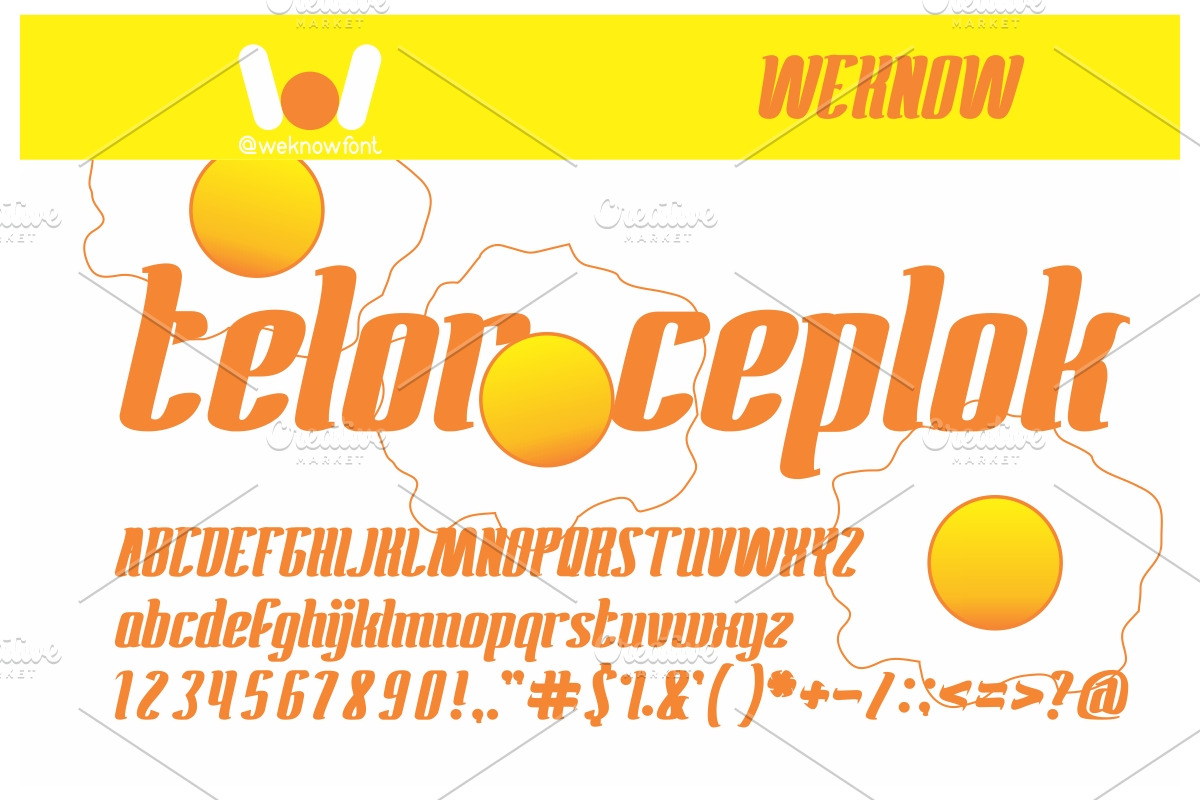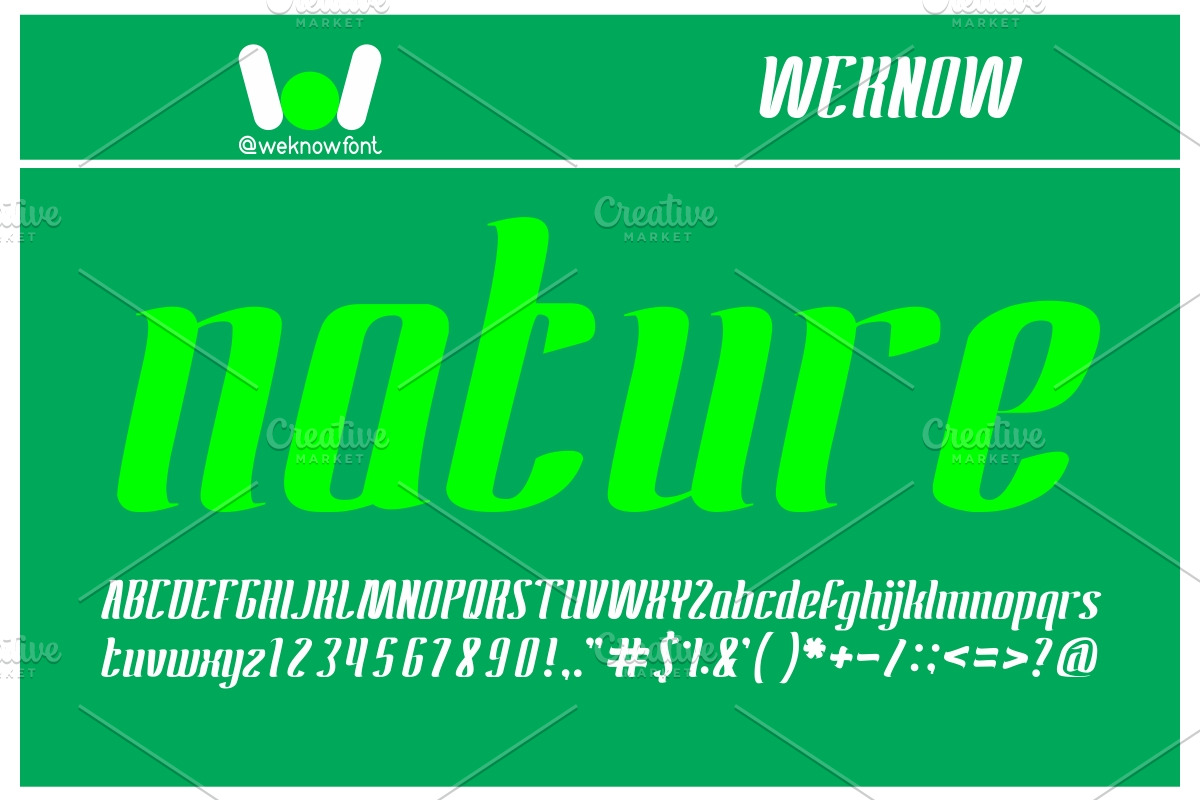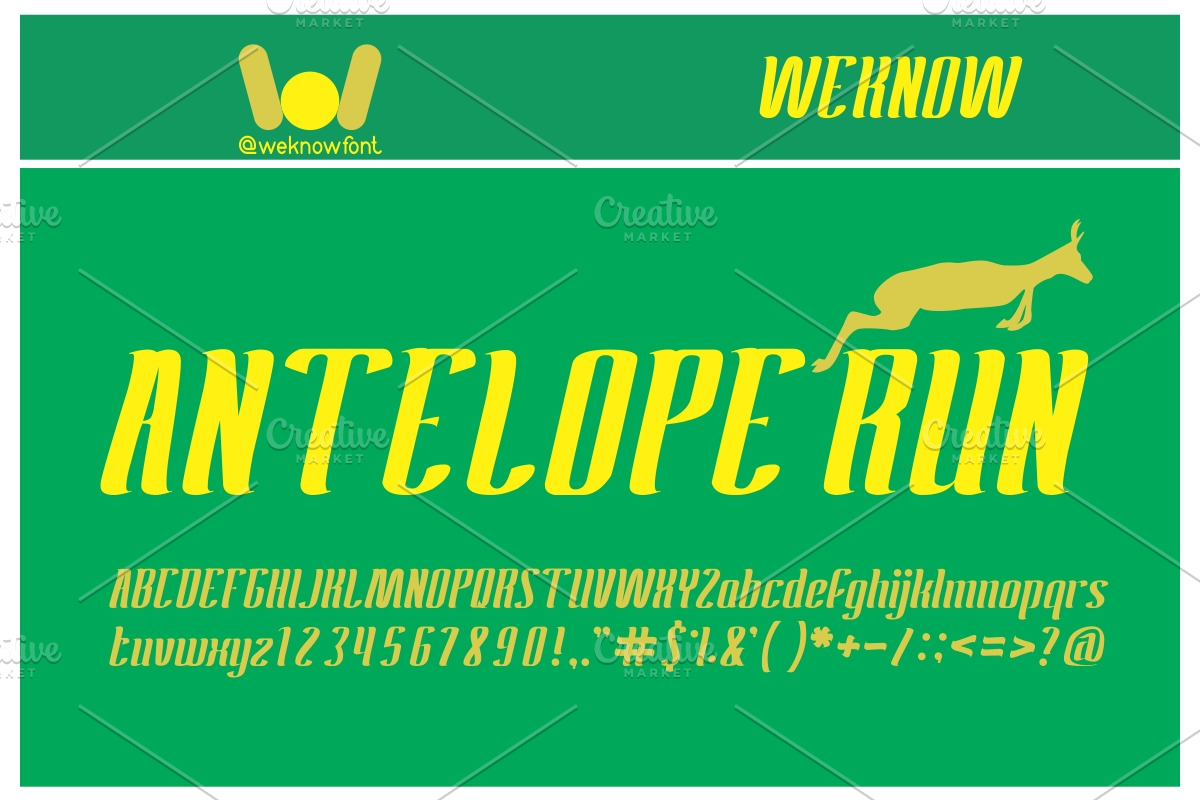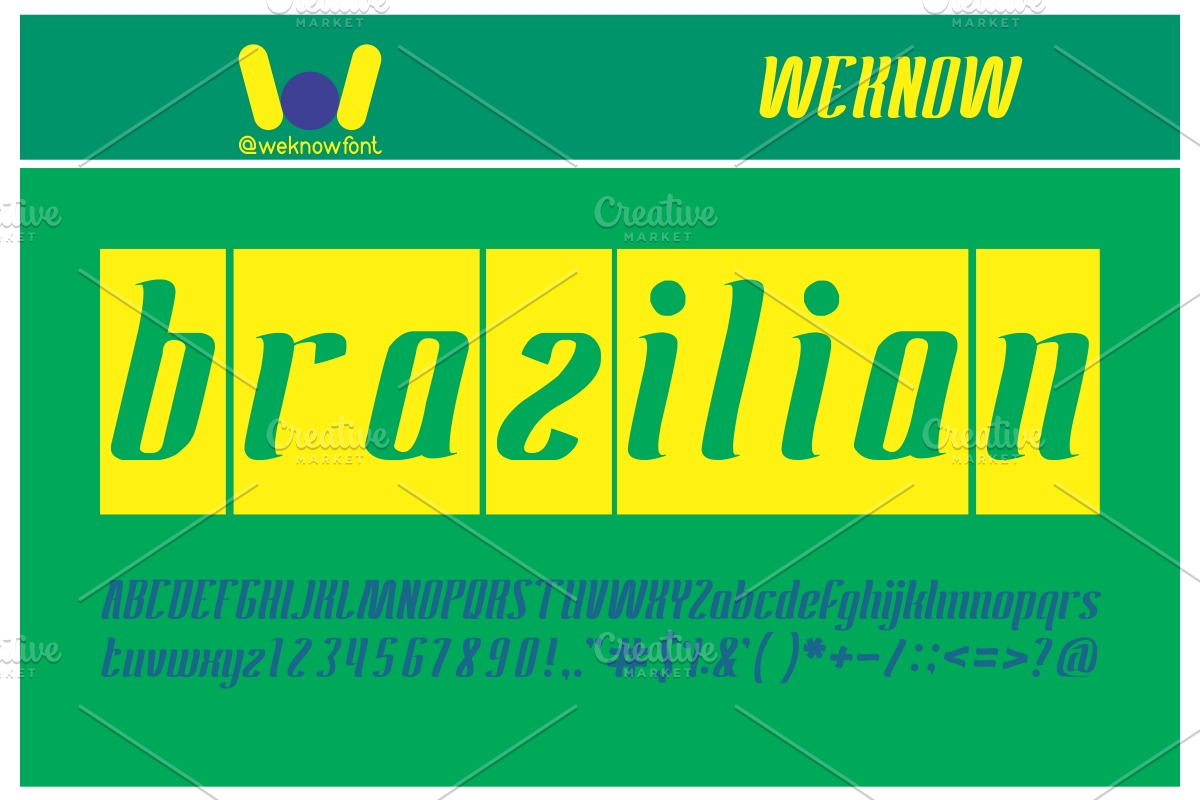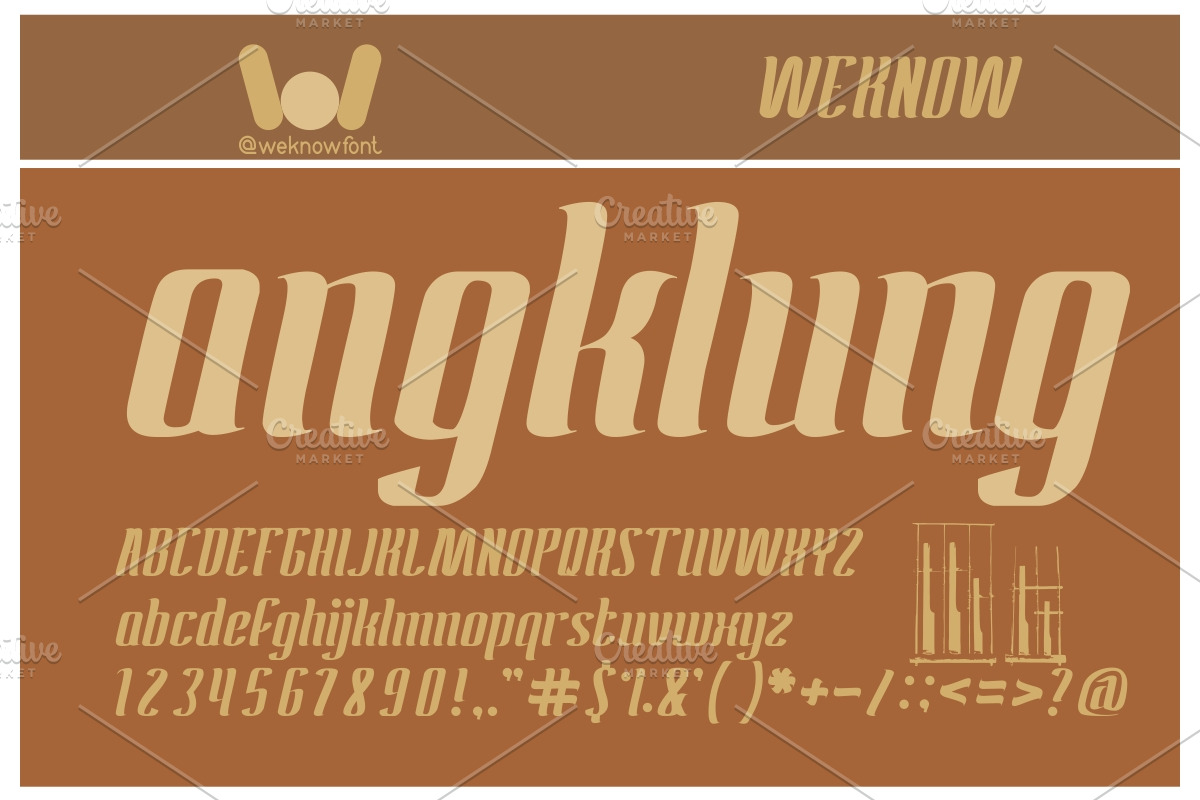
antelope run font
antelope run font by weknow is a font selected for branding, posters, packaging, typography.
Why antelope run font is worth a look
antelope run font by weknow fits naturally into Branding, posters, packaging, typography.